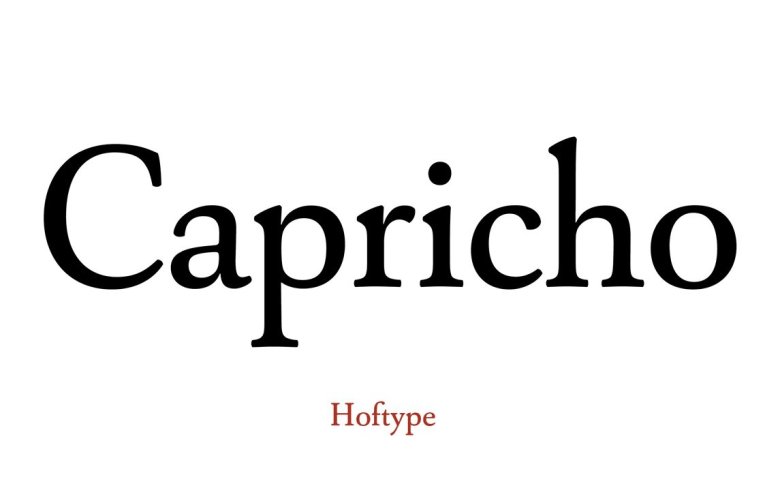
Capricho Font
Capricho Serif Font is a professional serif typeface created by Hoftype with soft corners and flowing shapes. It unites the virtues of a 17th century transitional typeface with its own distinctive and individual flavour.
Its large descenders and ascenders make for a distinguished appearance. The complementary Italics with its gently flowing ductus is the contrasting counterpoint.
Capricho Serif Font